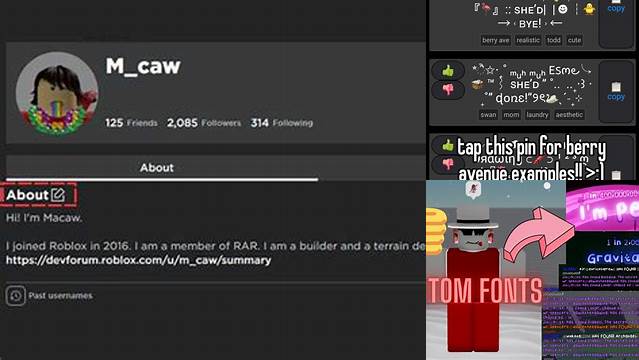
Roblox Bio Fonts: Level Up Your Profile's Style!
Hey guys! Ever wanted to spice up your Roblox bio and make it pop? You're in the right place! We're diving deep into the world of Roblox fonts that'll help you create a bio that's as unique as your avatar. Forget those boring, default fonts – it's time to get creative! This guide will explore the best fonts for Roblox bios, ensuring your profile stands out from the crowd. We'll cover everything from where to find these fonts to how to use them, so you can transform your bio into a stylish statement. Let's get started and give your Roblox profile the makeover it deserves!
Unlocking Stylish Text: Fonts for Roblox Bios
So, you're wondering, "What fonts work on Roblox bios?" Well, the good news is that you can't directly change the font within the Roblox platform itself. But don't let that burst your bubble! The magic happens with a little trickery using Unicode characters. Unicode characters are basically a massive library of symbols and characters that go beyond the standard alphabet. This means you can use these special characters to create the illusion of different fonts in your bio. Finding the right fonts for Roblox bios is all about discovering which Unicode characters will display correctly within the platform. There's a ton of Unicode fonts available online, and with a little bit of digging, you can find some awesome ones that'll make your bio shine. Remember, the key is to copy and paste these special characters into your Roblox bio. No coding or fancy tools are needed – it's super simple! Because Roblox supports Unicode, you can use a variety of styles to customize your profile. Let's explore some popular options and how to implement them.
Best Fonts for Roblox Bios
Okay, let's get into some of the coolest fonts that are perfect for your Roblox bio. Keep in mind that the way these fonts appear can vary depending on the device and browser your viewers are using, so it's a good idea to test them out and see how they look. Also, be aware that some of the more elaborate fonts might not display perfectly on all devices. Here are some awesome font styles you can use for your profile:
- Fancy Text Generators: These are your go-to tools for generating all sorts of stylish text. There are tons of websites out there that let you type in your desired text and then convert it into a fancy font using Unicode characters. Simply copy the converted text and paste it into your Roblox bio. The best part is these generators often offer a wide variety of font styles, so you can find one that perfectly matches your vibe.
- Bold and Italic: While Roblox doesn't offer direct bold or italic formatting, you can often find Unicode characters that mimic these styles. Look for characters that are designed to look bold or italicized. These can really help emphasize important information in your bio. Using bold and italic fonts are great for highlighting your username, your favorite games, or any other key details you want to stand out. Remember that consistency is key. Using too many different styles at once can make your bio look cluttered and less appealing.
- Cursive Fonts: Cursive fonts can give your bio a more elegant and personalized feel. You can find cursive-style Unicode characters that look like handwritten script. These are great for adding a touch of flair to your bio. Use these to write your name or a short, friendly message to other players. However, be careful not to overdo it, as cursive fonts can sometimes be a little harder to read, especially in long blocks of text.
- Special Symbols and Characters: Don't be afraid to use special symbols and characters to add visual interest to your bio. Hearts, stars, arrows, and other symbols can break up the text and make your bio more engaging. These are also great for creating bullet points or dividing different sections of your bio. You can find a wide range of symbols in Unicode character tables or special font generators. Use them sparingly to prevent your bio from looking too crowded, and always prioritize readability. Adding symbols to your text creates an interesting visual representation.
Where to Find and Use Roblox Bio Fonts
Alright, let's get down to the nitty-gritty: where do you actually find these amazing fonts and how do you use them in your Roblox bio? Don't worry; it's easier than you think. Here's a step-by-step guide to help you get started:
Finding Your Fonts
- Font Generators: This is your secret weapon! A simple search for "fancy text generator" or "Unicode text generator" will bring up tons of websites where you can type in your desired text and convert it into different font styles. These sites are easy to use – just type, generate, and copy! Font generators are a great resource for finding new and interesting font styles. Explore different generators to find the perfect look. Test out different options to see which ones you like best. These generators are often updated with new fonts. This is a great way to keep your bio fresh and unique.
- Unicode Character Tables: For those of you who want a bit more control, you can explore Unicode character tables. These tables list all the available Unicode characters, including different font styles and symbols. This method can be a bit more time-consuming, but it gives you a wider selection of characters to choose from. Using Unicode character tables is a great option if you are looking for something very specific, like a particular symbol. Make sure the characters you use are supported by Roblox, as some might not display correctly.
- Social Media and Community Resources: Check out what other Roblox users are doing! Browse through profiles of players with cool bios to see what fonts they're using. Many Roblox communities on platforms like Reddit, Twitter, or Discord often share tips and tricks for customizing your profile. You can find specific font suggestions, generator recommendations, and even pre-made text snippets to copy and paste. The Roblox community is super helpful, so don't be afraid to ask for help or inspiration.
Using Your Fonts
- Copy and Paste: Once you've found your desired font style, the process is incredibly easy. All you need to do is copy the text from your font generator or Unicode table and paste it into the bio section of your Roblox profile. No complicated coding or special tools are required.
- Edit Your Roblox Bio: Head over to your Roblox profile page and click the "Edit Profile" button. Find the "About" section, where you can write your bio. Delete your current bio (if you have one), and paste your fancy new text in its place. It's that easy! Experiment with different styles and layouts. Make sure the text fits within the character limit of your bio.
- Check for Compatibility: After you've pasted your text, double-check how it looks on your profile page. Sometimes, certain characters might not display correctly on all devices or browsers. If you notice any issues, try a different font style. Make sure your font looks good across different devices and browsers.
Best Practices for Roblox Bio Design
So, you've got your fonts sorted – awesome! But your bio is more than just fancy text. It's a chance to showcase your personality and connect with other players. Here are some best practices to help you design an awesome Roblox bio:
Keep It Concise and Engaging
Your bio should be short, sweet, and to the point. Avoid long blocks of text that can bore readers. Highlight the most important information, such as your username, favorite games, and any other relevant details. Short bios are also easier to read on mobile devices. Grab attention with an interesting opening line. A short, catchy bio is more likely to be read and remembered.
Highlight Your Interests
Let other players know what you're passionate about. Do you love building? Are you a huge fan of a specific game? Do you enjoy roleplaying? Share your interests to help other players find you. Your interests help you connect with other players who share the same passions. Sharing your interests makes your bio more relatable and interesting.
Use Formatting Wisely
As mentioned earlier, while you can't directly control the font, you can use Unicode characters to mimic styles. Bolding, italics, and symbols are your friends! But don't overdo it. Too much formatting can make your bio look cluttered and difficult to read. Use formatting to emphasize key information or to create visual sections within your bio. The right amount of formatting can make your bio much more organized and easier to read.
Include Contact Information (If Appropriate)
If you're comfortable with it, you can include links to your social media profiles or any other contact information. This allows other players to connect with you outside of Roblox. Be cautious when sharing personal information and always prioritize your online safety. Only share what you're comfortable with, and make sure you understand the risks involved.
Update Regularly
Keep your bio fresh and up-to-date. Change it to reflect your current interests, favorite games, or any other changes in your Roblox life. This shows other players that you're active and engaged in the community. Regular updates also give you a chance to experiment with different fonts and styles.
Sometimes, things don't go according to plan. Here are some common issues you might encounter when using fonts in your Roblox bio and how to fix them:
Characters Not Displaying Correctly
This is a very common problem. Some Unicode characters might not be supported by Roblox or might not display correctly on all devices or browsers. If this happens, try a different font style or a different Unicode character for your desired effect. It's a good idea to test your bio on different devices to ensure it looks good to everyone. Choosing compatible characters is essential.
Font Looks Different on Different Devices
The way fonts appear can vary depending on the device and browser. What looks great on your computer might look different on a mobile phone. This is why it's important to test your bio on different devices and browsers. Accept that font variations are a part of using these tricks. Look for font styles that are more likely to display consistently across different platforms.
Character Limit Exceeded
Roblox has a character limit for your bio, so you might not be able to fit everything you want. When this happens, try to be concise and prioritize the most important information. Try shortening sentences or removing unnecessary words. Keep in mind the character limit and write accordingly.
Congrats, guys! You now know how to find and use awesome fonts in your Roblox bio to make your profile stand out. Remember to use font generators and Unicode characters to your advantage and to follow the best practices. Keep it concise, highlight your interests, and update your bio regularly. Have fun experimenting with different fonts and styles, and most importantly, express yourself and have fun in the Roblox community. Now, go forth and create a bio that's as unique and awesome as you are! If you have any questions, feel free to ask!